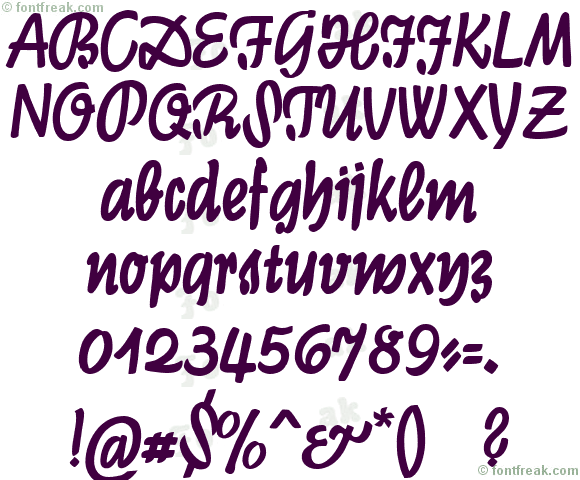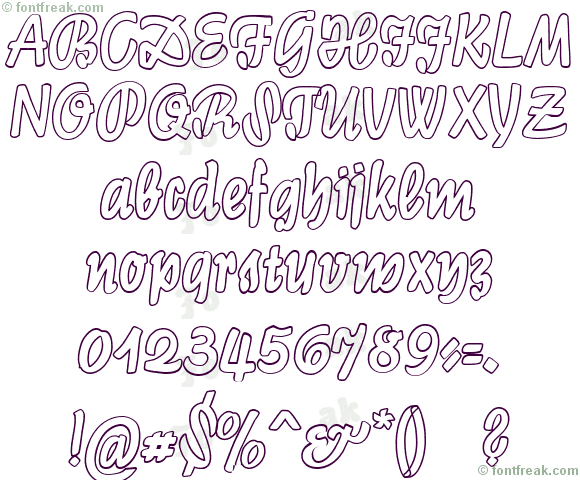
LichteGraphicCAT
GraphicCAT
About LichteGraphicCAT
LichteGraphicCAT is a captivating display font designed by Peter Wiegel, characterized by its playful and artistic flair. This font falls into the decorative category, making it ideal for projects that require a unique and eye-catching visual style. The strokes have a medium weight, coupled with a slight contrast that adds depth without overwhelming the viewer. The spacing between the letters is well-balanced, ensuring readability while still allowing the intricate design elements to shine. The font features whimsical curves and loops, giving it a lively personality that can enhance any creative endeavor.
Perfect for a variety of applications, LichteGraphicCAT can be used effectively in wedding invitations, where its decorative nature adds a personal touch. It shines on movie posters, helping to convey a sense of fun and creativity that can attract audiences. Restaurant menus can also benefit from this font, offering a distinctive look that enhances the dining experience. Additionally, it works well for branding materials aimed at small businesses, allowing owners to establish a memorable visual identity. Content creators will find this font particularly appealing for social media graphics and promotional materials, as its unique style is sure to capture attention.
The target audience for the LichteGraphicCAT font includes graphic designers, small business owners, and content creators who seek to make a statement through their visual communications. This font stands out due to its charming design and versatility, allowing it to fit seamlessly into various contexts. With the LichteGraphicCAT font free download available, it provides an excellent opportunity for creatives to elevate their projects without the burden of licensing fees. Whether you’re designing for print or digital media, this font is sure to bring your ideas to life in a vibrant and engaging way.